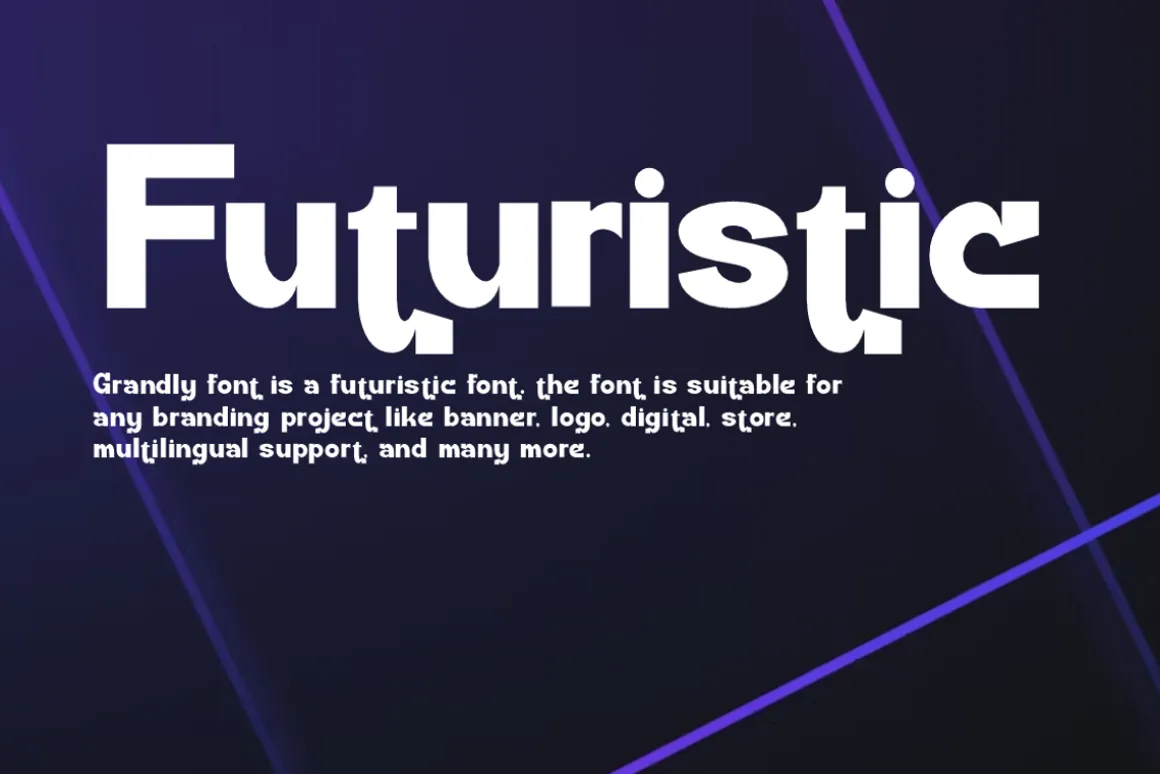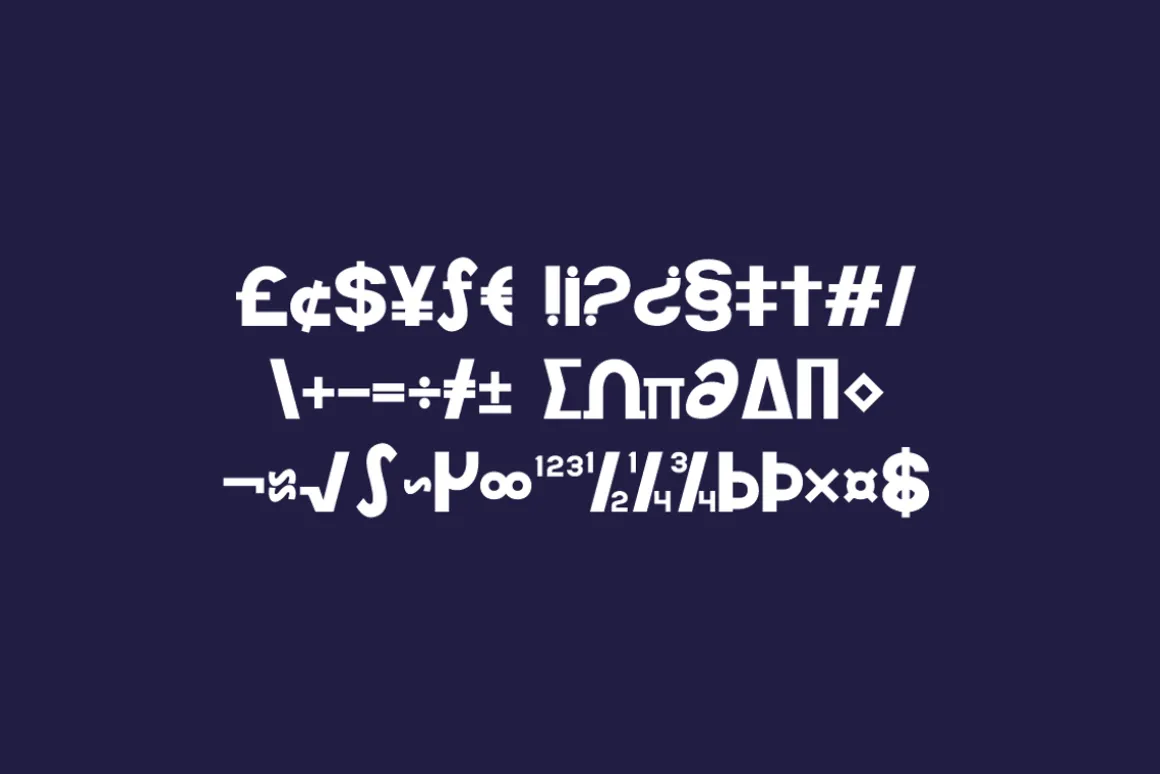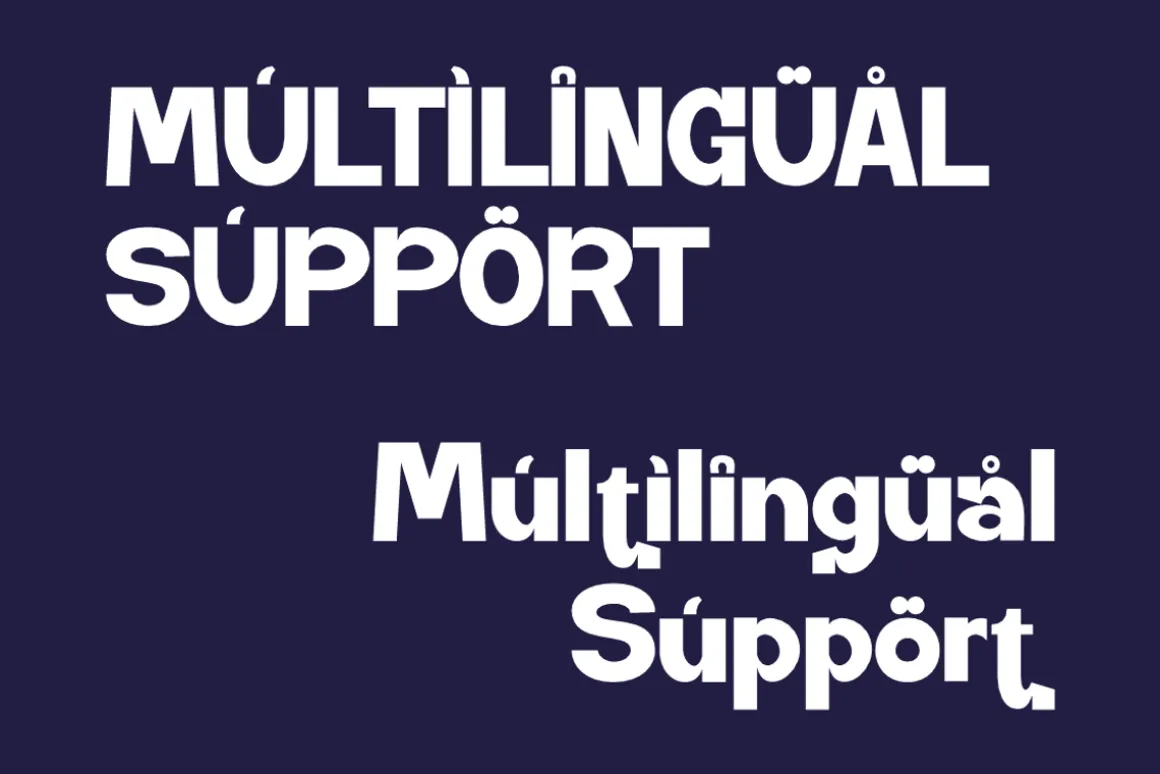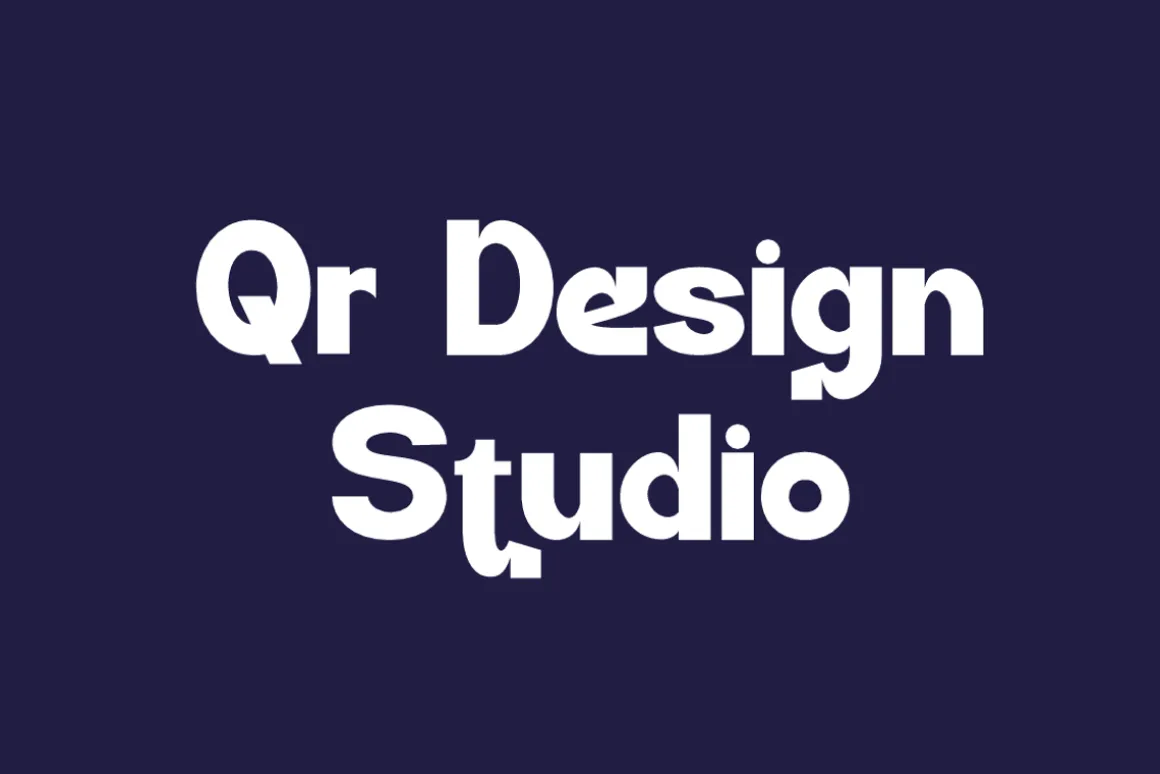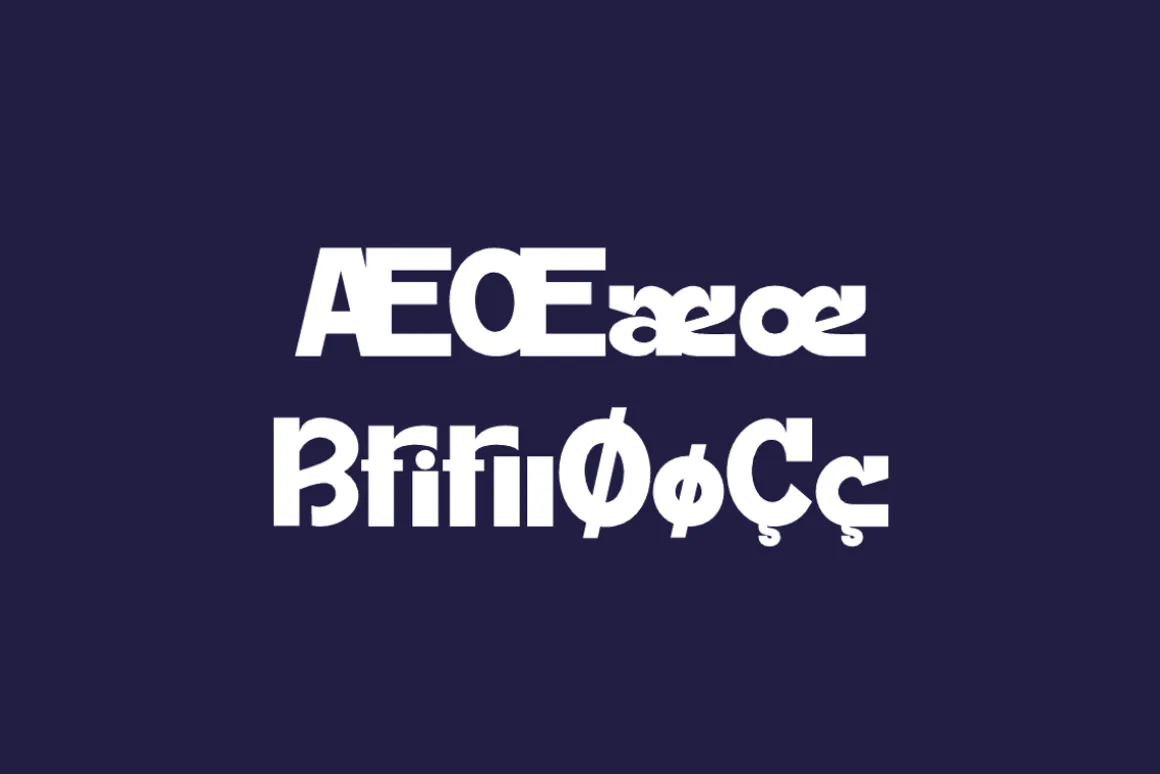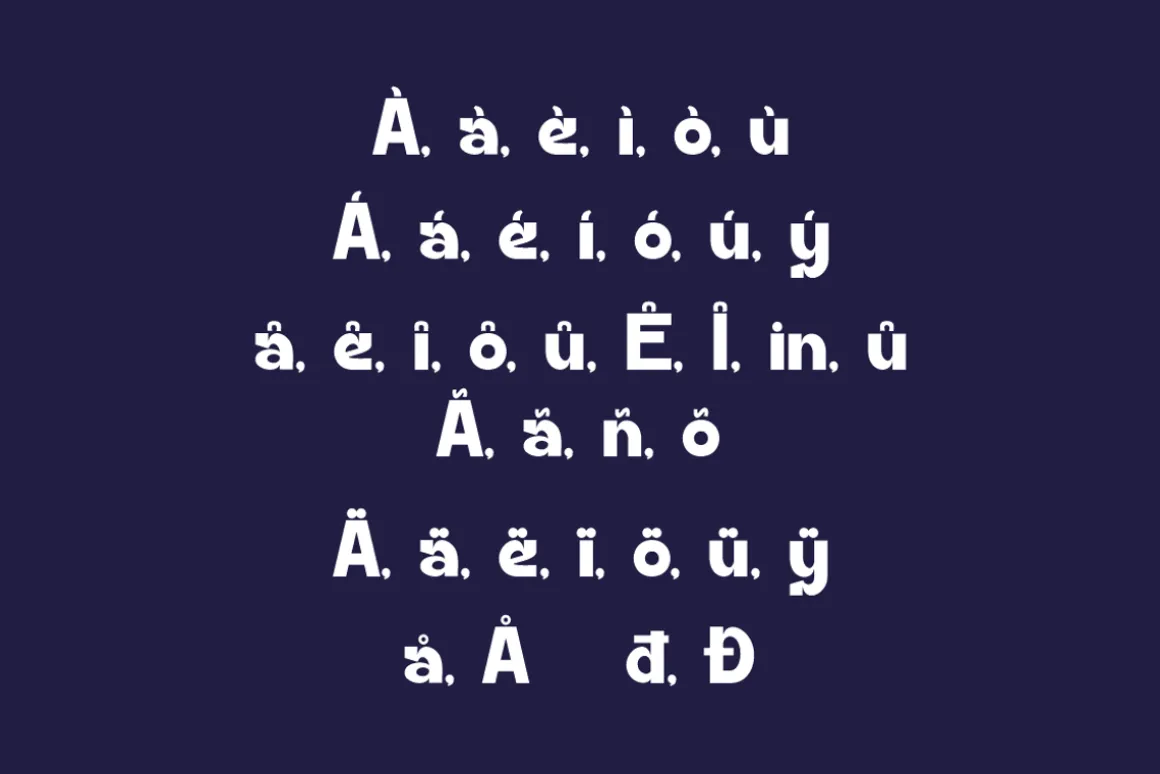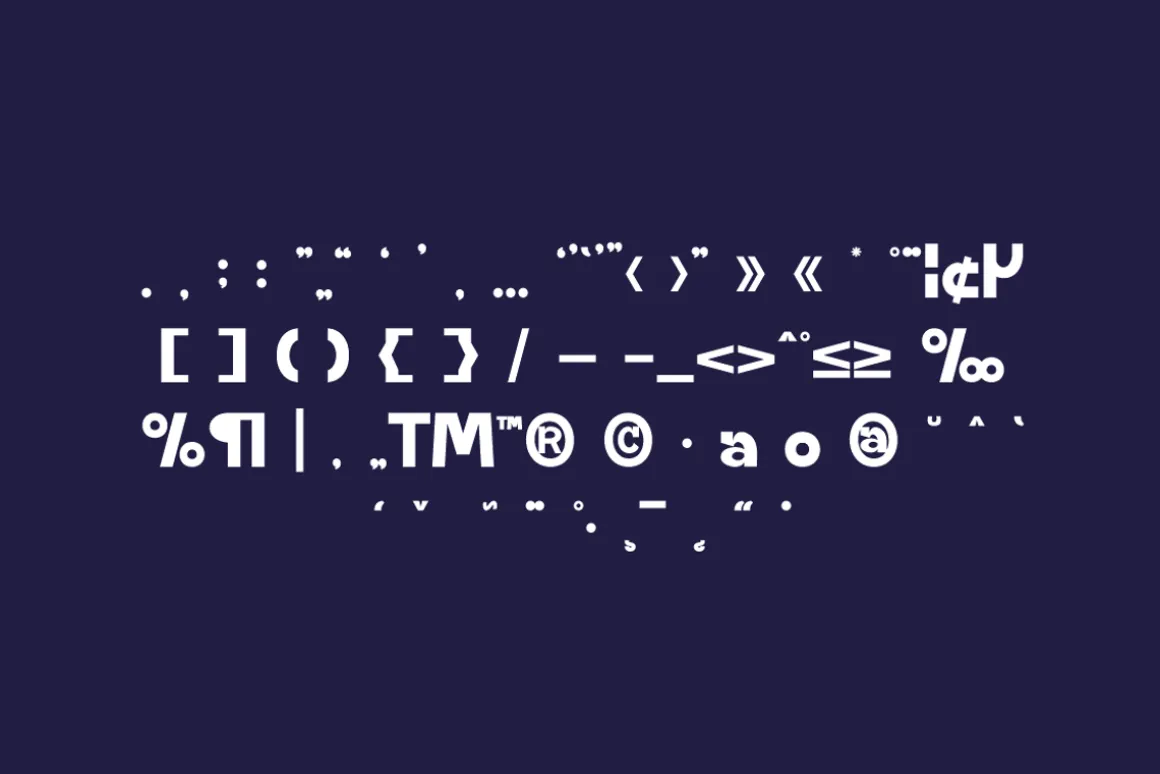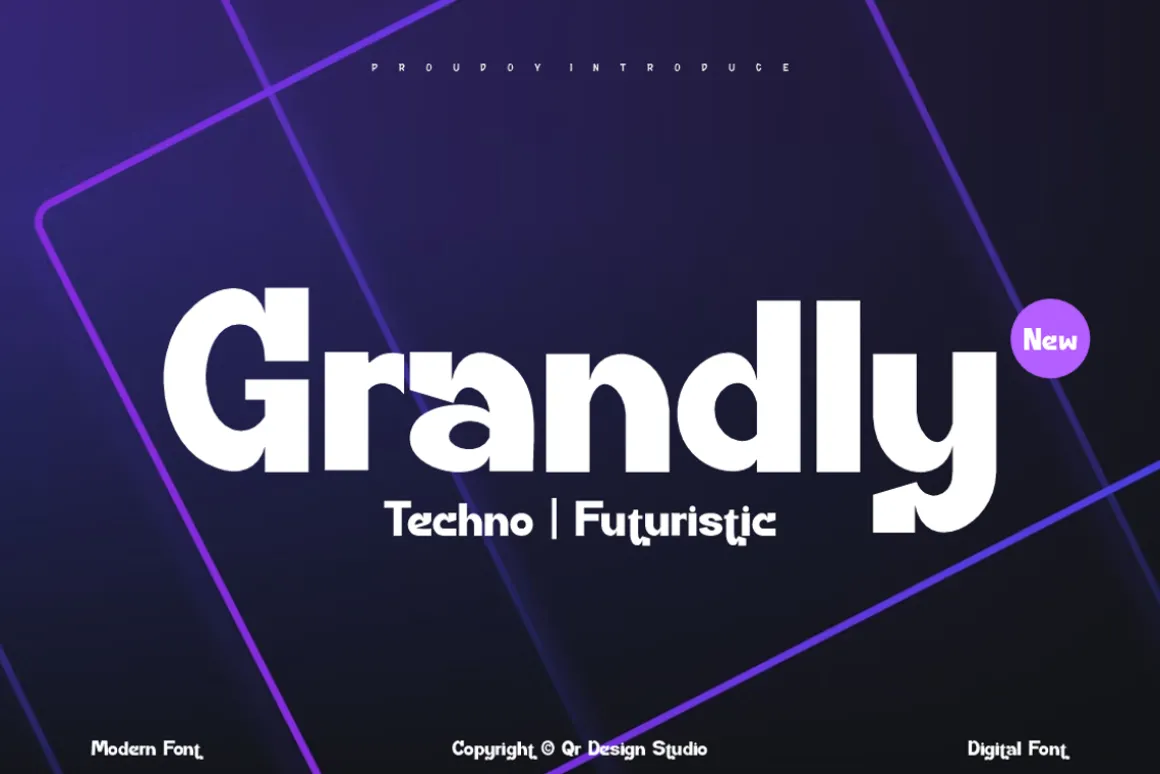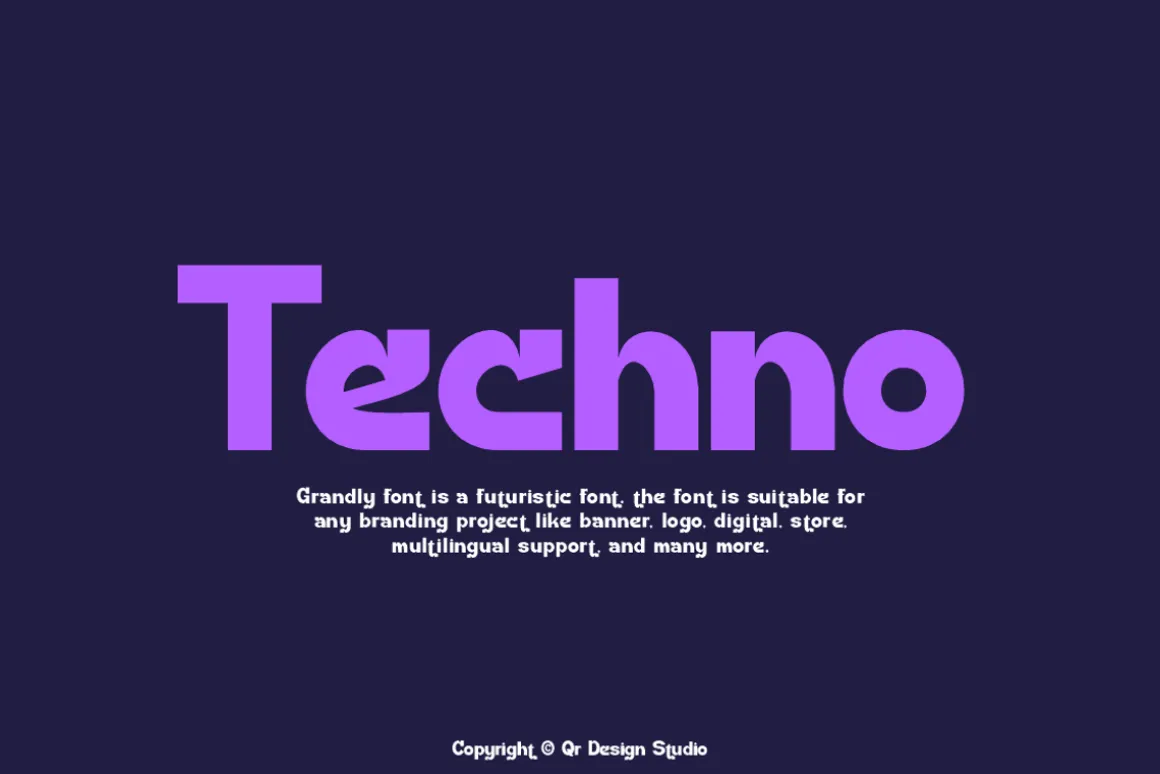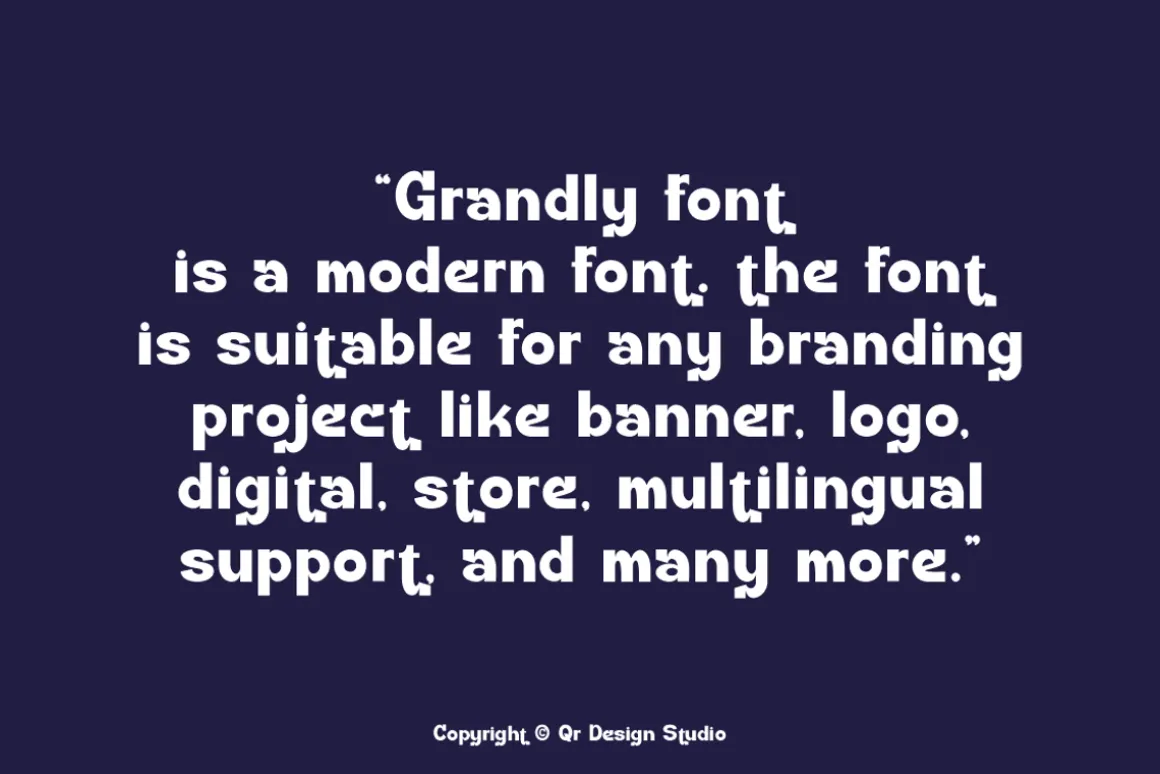
Grandly Font is a bold and authentic display font.The font is suitable for any branding project like poster, logo, sport, and many more.Outstanding in a wide range of contexts.